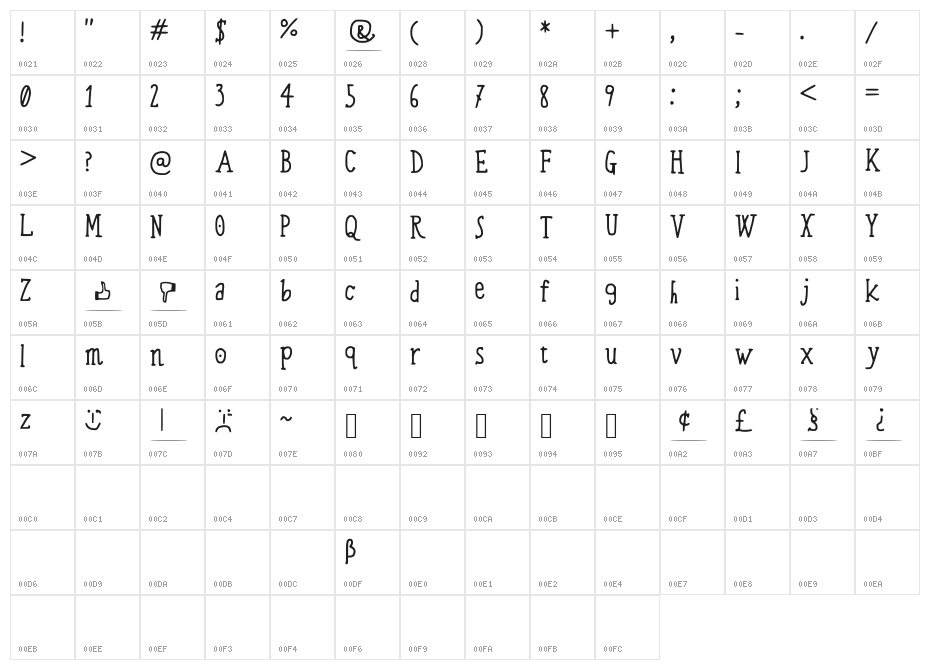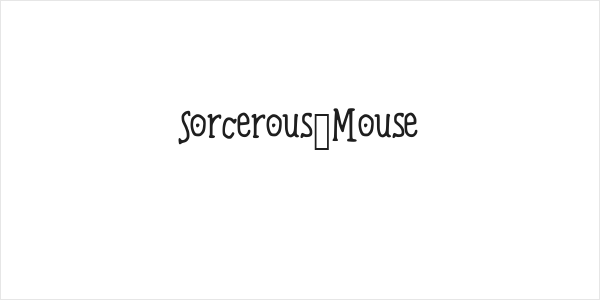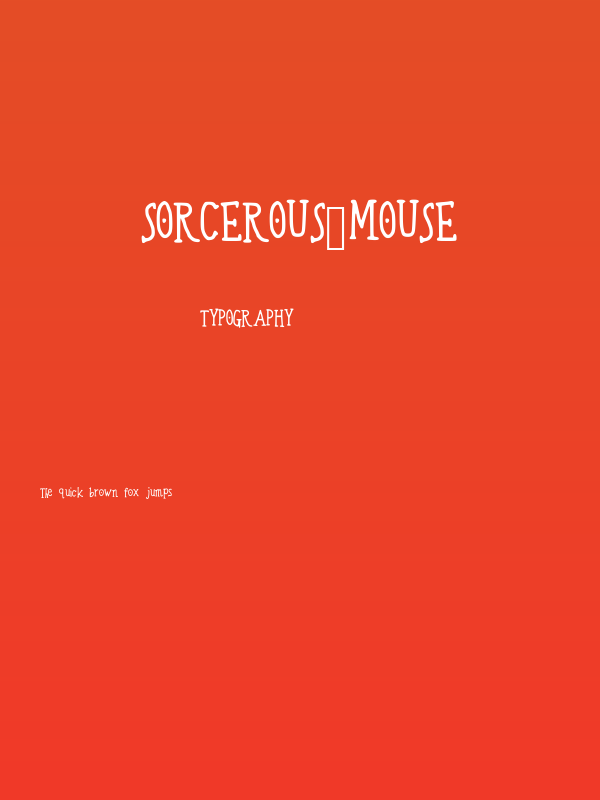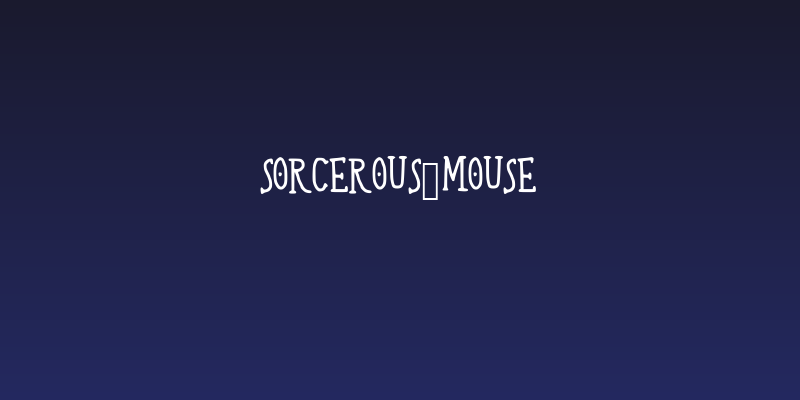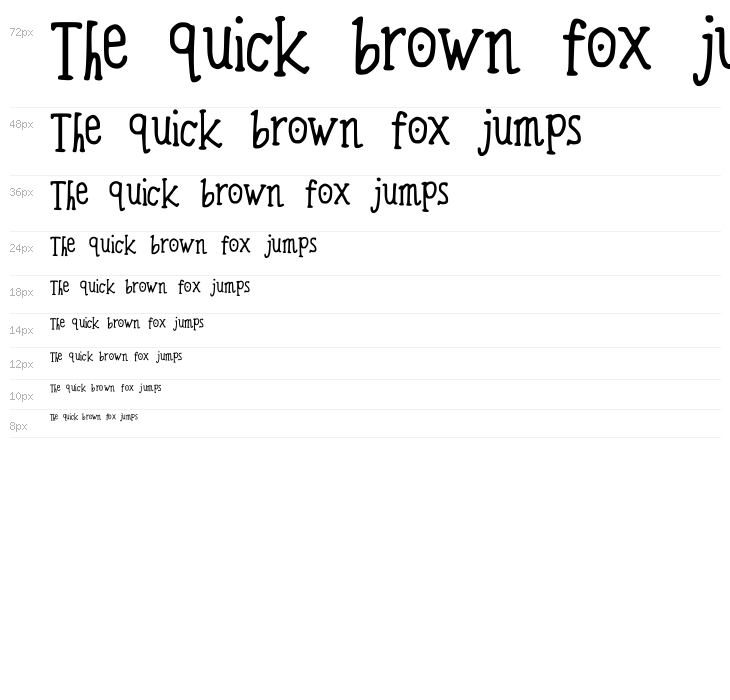
Sorcerous_Mouse Font
Sorcerous_Mouse Description
This font features a whimsical and playful design, characterized by its uneven and slightly wavy strokes that give it a hand-drawn appearance. The letters have a casual, informal style with varying stroke widths, adding to its quirky charm. The uppercase letters are bold and prominent, while the lowercase letters maintain a consistent flow, enhancing readability. The numerals and special characters follow the same playful aesthetic, making them suitable for creative projects. The overall design is reminiscent of a storybook or fantasy theme, perfect for adding a touch of magic to any text.
| Overall Style | Whimsical, Playful, Hand-drawn |
| Proposed Projects | Ideal for children's books, fantasy-themed designs, playful branding, and creative invitations. |